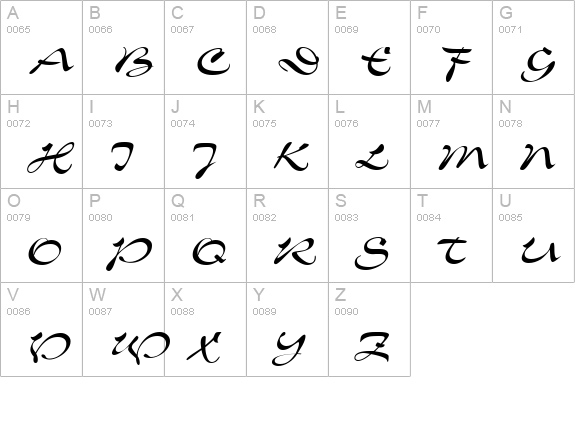
S760-Script-Regular is the standard, neutral variant in the S760 typeface family \xE2\x80\x94 well suited to general body text, paragraphs, and standard typographic work.
S760-Script-Regular font is a beautifully crafted typeface that exudes elegance and sophistication. With its flowing script style and delicate curves, this font is perfect for adding a touch of charm to any design project. Whether you're creating wedding invitations, greeting cards, or branding materials, S760-Script-Regular font will elevate your work to new heights. What's even better is that this font is completely free to download at FontsMarket.com. Yes, you read that right! You can access this stunning typeface at no cost and use it in your personal and commercial projects without any restrictions. Don't miss out on this opportunity to enhance your designs with the timeless beauty of S760-Script-Regular font. Download it today and let your creativity shine!